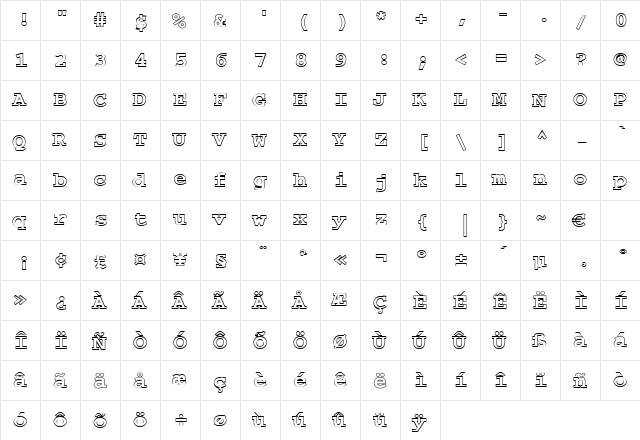
AlphabetOpen Regular
Design Context for AlphabetOpen Typeface
AlphabetOpen is a composed and adaptable typeface that performs quietly and consistently across a wide range of design contexts.